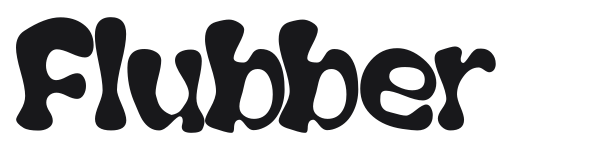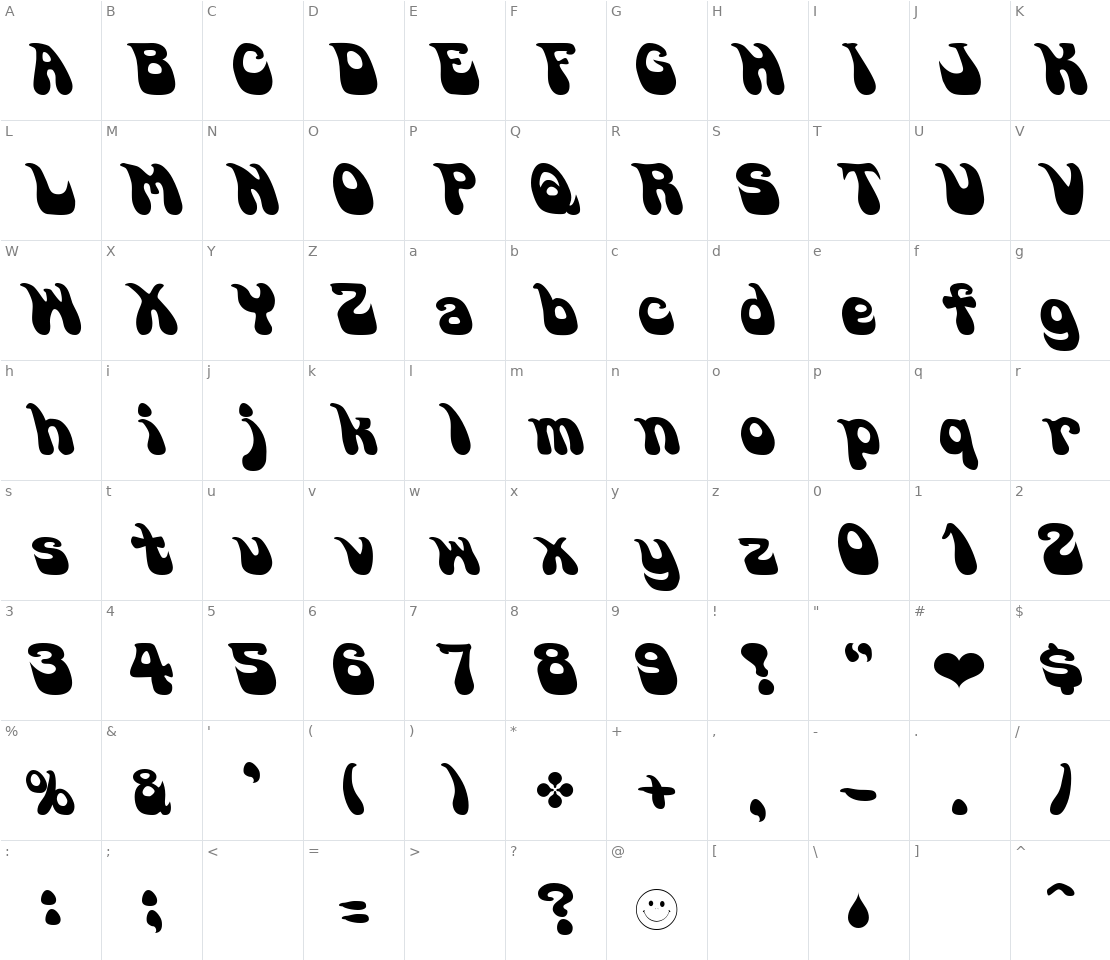
Go Soul
by Grass Onions · Website
Go Soul is a bold, rounded display face from Grass Onions that channels the thick, flowing letterforms of 1970s psychedelic poster art. The curves are exaggerated and funky, with a warm, loose energy that feels right at home on concert posters, vintage branding, and album artwork. It's unapologetically groovy, built for headlines where restraint isn't really the goal.